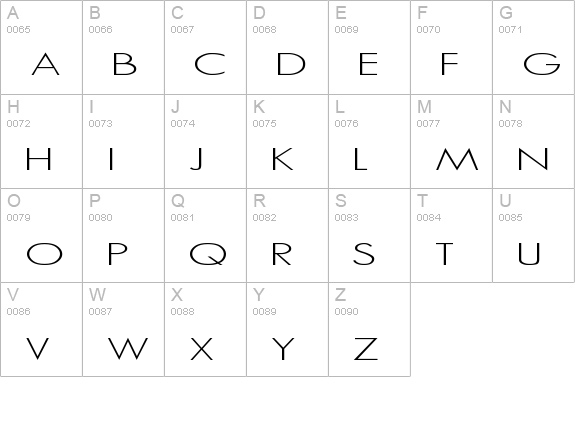
SansSerif Font Details
SansSerif is a timeless and versatile font that is sure to enhance any design project. With its clean lines and modern appearance, this font is perfect for both print and digital media. Whether you are creating a logo, designing a website, or crafting a stylish invitation, SansSerif is the ideal choice to bring your ideas to life. What sets SansSerif apart is that it is not only visually appealing, but also freely available for download. That's right, you can enjoy the benefits of this stunning font without any cost. Simply head over to FontsMarket.com and easily download SansSerif with just a few clicks. With SansSerif, you can add a touch of sophistication and professionalism to your designs without breaking the bank. This font is designed to be easy to read, making it perfect for body text, headings, and everything in between. Its simplicity and elegance make it suitable for a wide range of projects, from corporate presentations to personal creative endeavors. Whether you are a professional designer or an aspiring artist, SansSerif is a must-have in your font collection. Its versatility, readability, and timeless appeal make it a go-to choice for designers all over the world. So why wait? Download SansSerif today for free at FontsMarket.com and start elevating your design projects to the next level.